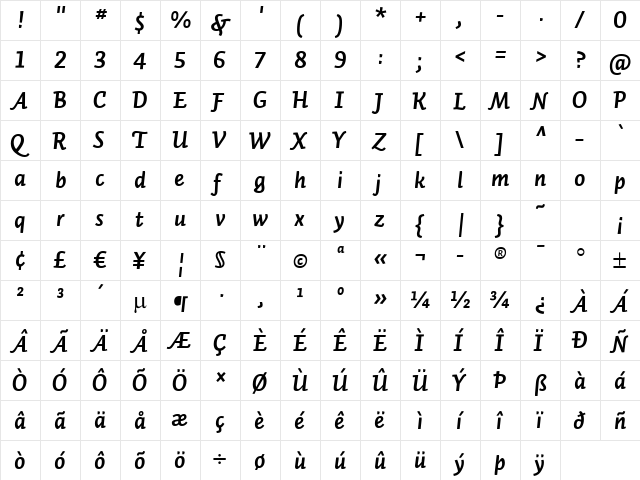
Auto 2 Bold Italic LF
Design Context for Auto 2 Typeface
Auto 2 offers clean, dependable letterforms without strong stylistic allegiance, making it a practical choice for designers who need flexibility. The dynamic lean of this cut emphasises speed and emphasis in any layout. Its bold stroke weight gives it real presence on the page.
Pro Tip: Try Auto 2 for annotation and caption copy alongside an upright companion — the contrast in angle creates a dynamic but ordered typographic system.